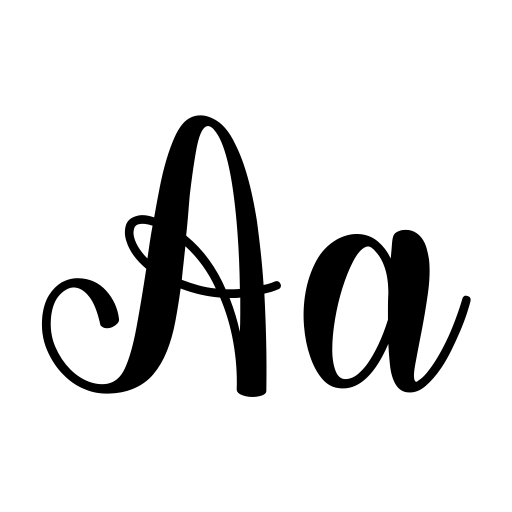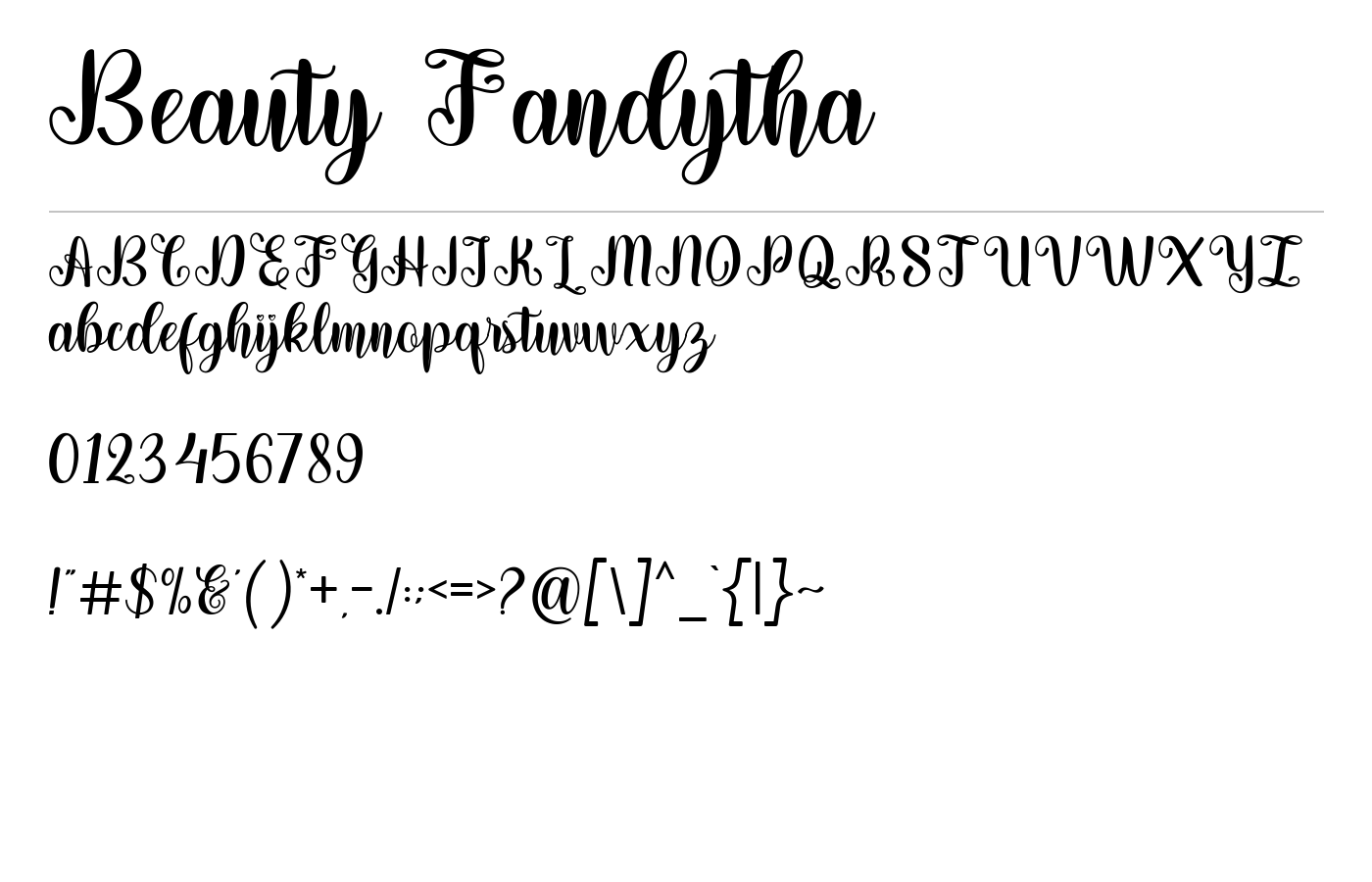
Beauty Fandytha is a playful and elegant script font featuring fluid, connected letterforms with charming flourishes and a moderate contrast between thick and thin strokes. Its distinctive uppercase characters flaunt whimsical curls, while the lowercase letters maintain a smooth, casual flow, making it perfect for feminine branding, invitations, and creative headlines. This font’s lively, friendly personality lends itself well to fashion, beauty, and lifestyle designs that seek a warm, sophisticated touch.
Beauty Fandytha Font
About Beauty Fandytha Font
| Font family | Beauty Fandytha Font |
| Designer | Usman Al Baehaqi |